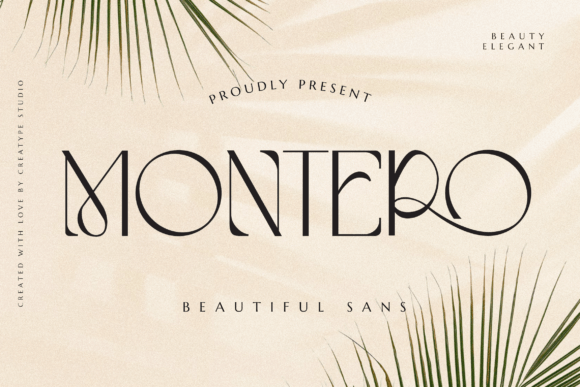
Unleash the allure of Montero, a captivating sans serif font family that dances between modernity and timeless elegance. Its graceful curves and spirited personality bring a touch of sophistication to your digital creations. Let Montero elevate your branding projects, logos, and wedding designs with its effortless charm.
Adorn your social media posts and advertisements with Montero's captivating presence. Its legible structure makes your messages shine on any platform, whether you're crafting captivating captions or eye-catching visuals. Let Montero amplify your brand's voice and leave a lasting impression.
Embrace the versatility of Montero, a font that seamlessly adapts to a myriad of creative endeavors. Its innate charm complements product packaging, designs, labels, and photography, adding a touch of sophistication to every element. Let Montero enhance your visual storytelling and make your products stand out.
Indulge in the artistry of Montero, a font that adds a personal touch to your creations. Its handwritten flair brings a sense of authenticity and warmth to invitations, stationery, and personal projects. Let Montero convey your emotions and make your words come alive.
Discover the endless possibilities with Montero, a font that ignites creativity and empowers you to tell your story with style. Its versatility and timeless appeal make it the perfect choice for a wide range of projects. Embrace the allure of Montero and let your imagination soar.